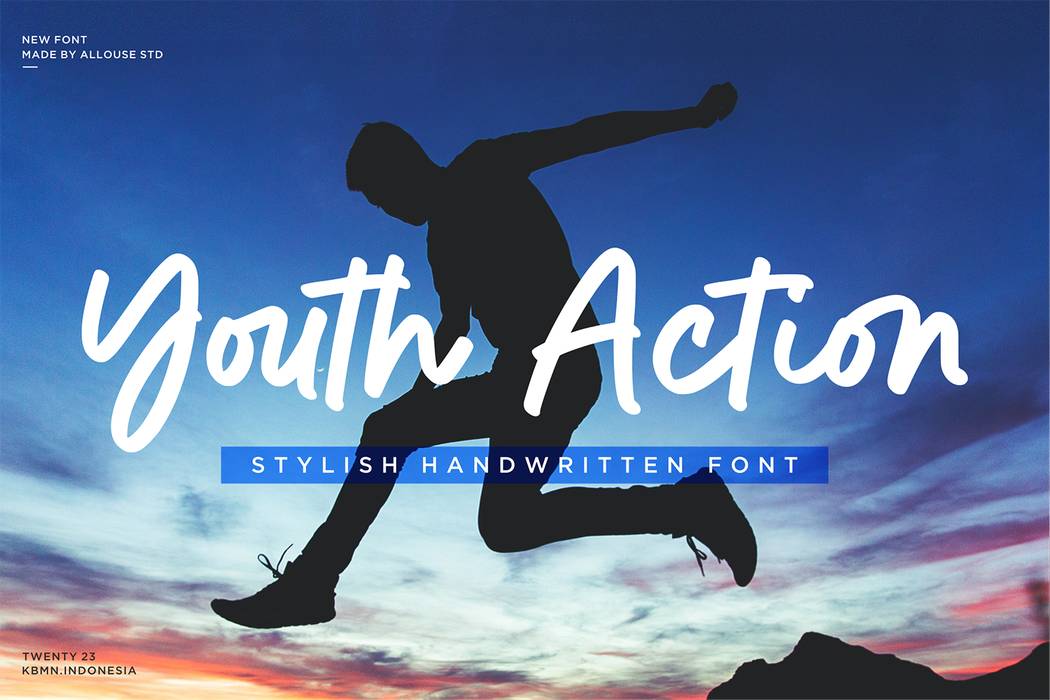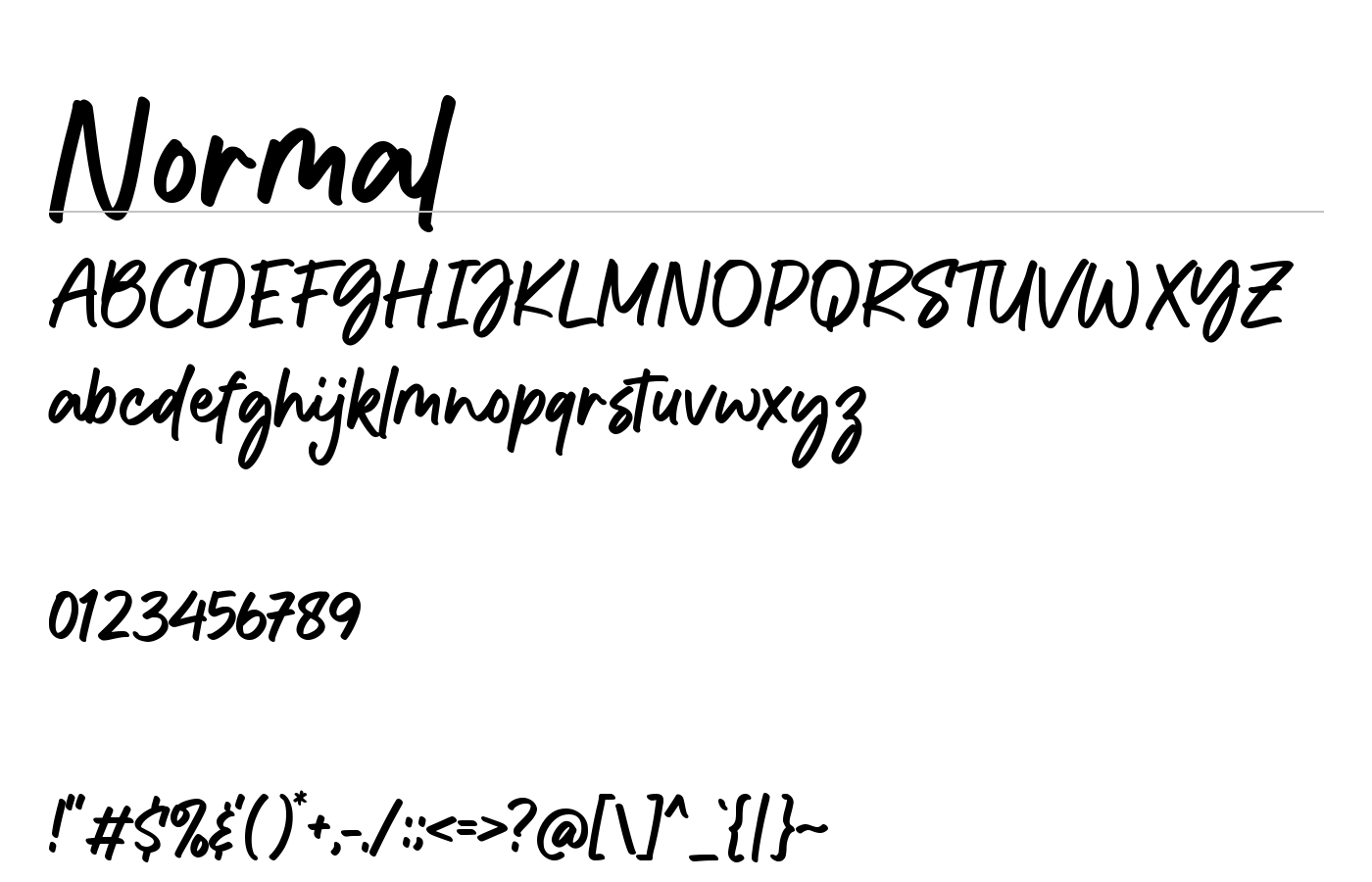
Youth Action Font is a lively and casual handwritten script with a natural, flowing style that feels personal and energetic. Its medium weight, slightly condensed letters, and smooth, rounded strokes make it ideal for projects that want to convey a friendly, youthful, and approachable vibe. Perfect for branding, posters, social media, and informal editorial use, it brings a sense of warmth and creativity to any design.
Youth Action Font
About Youth Action Font